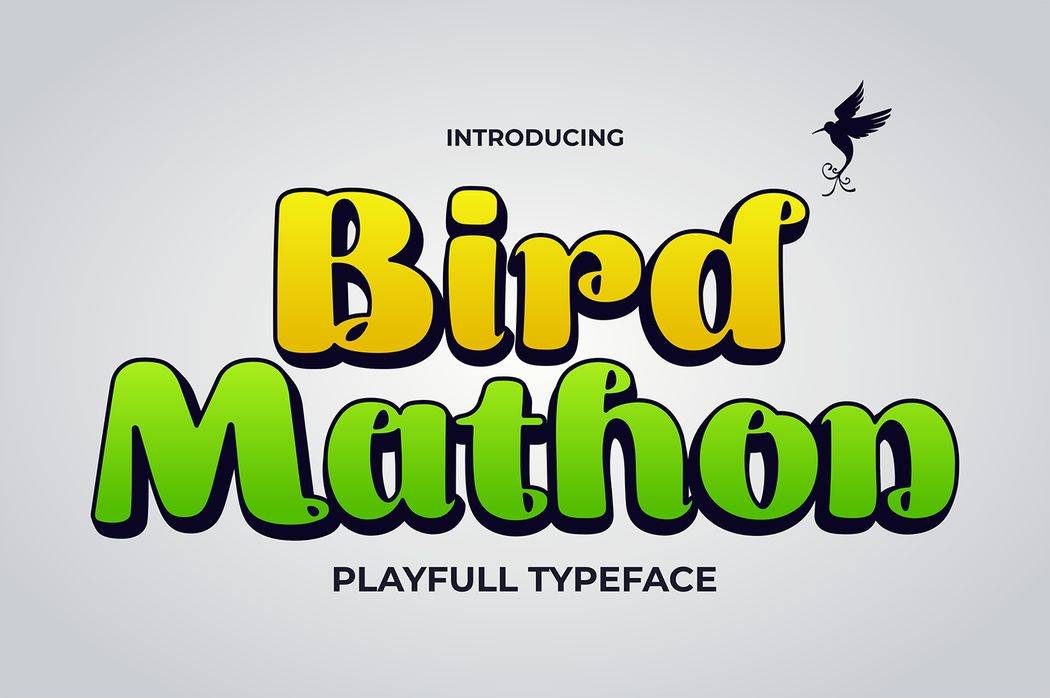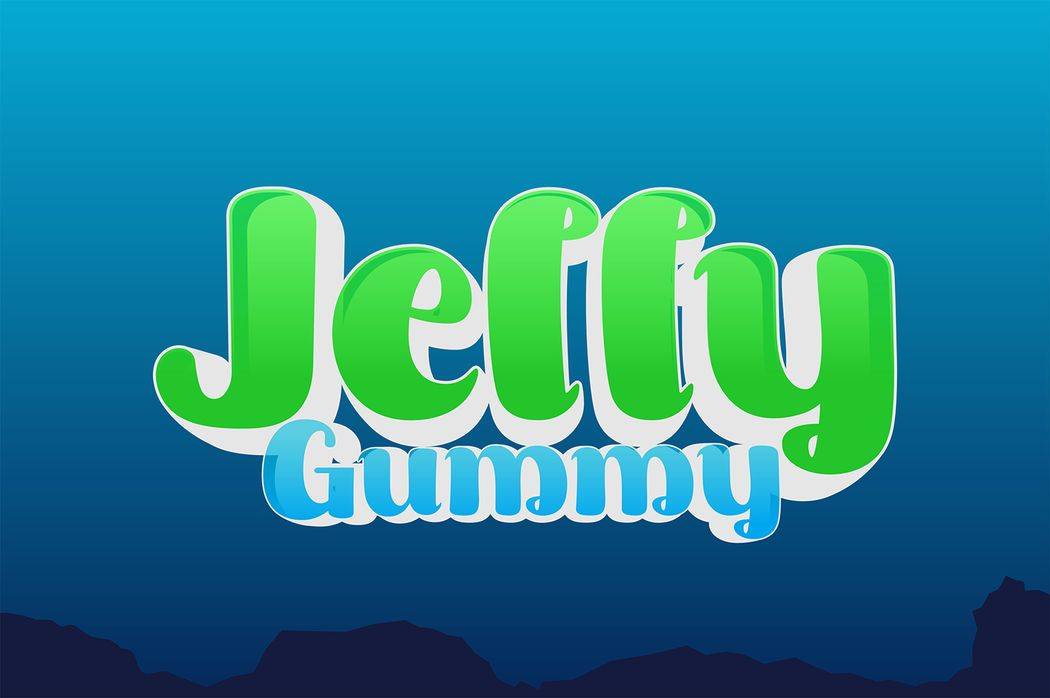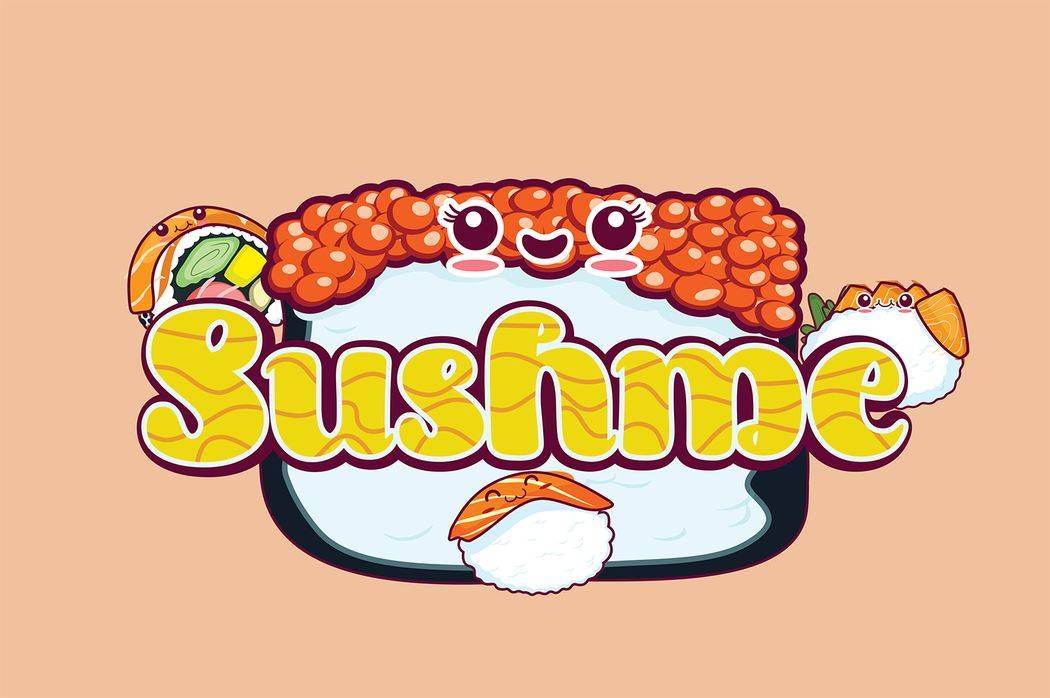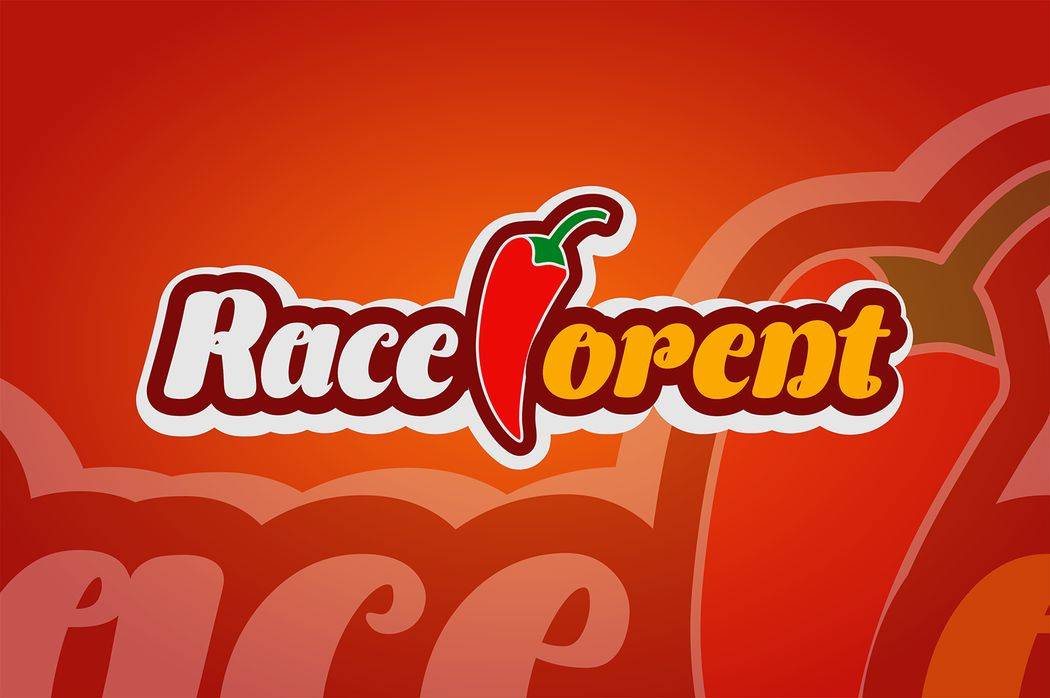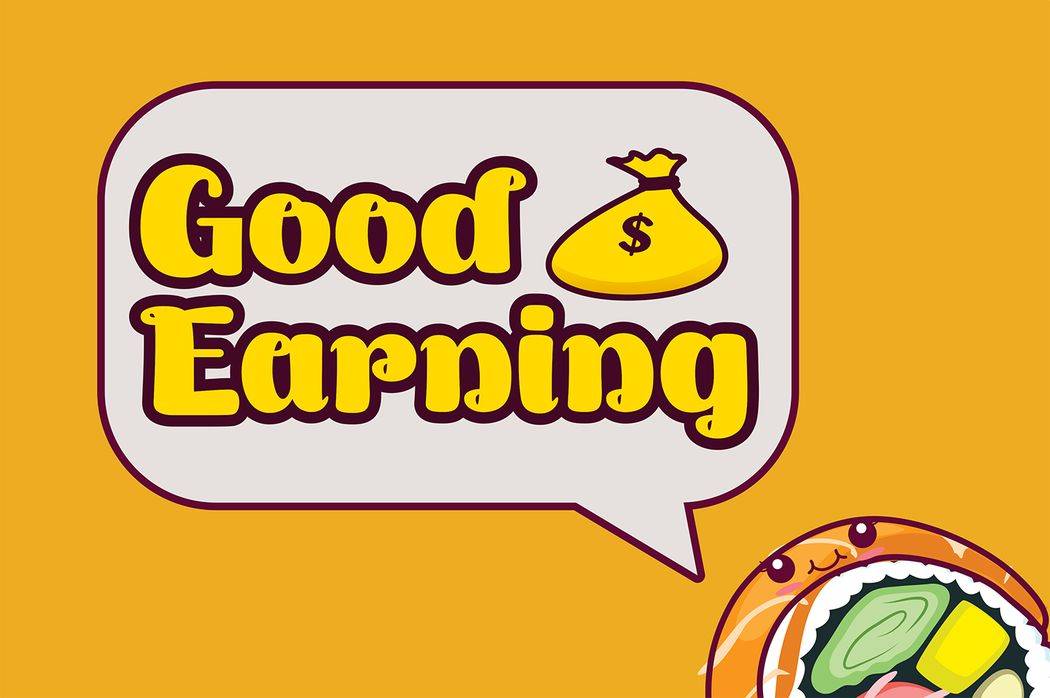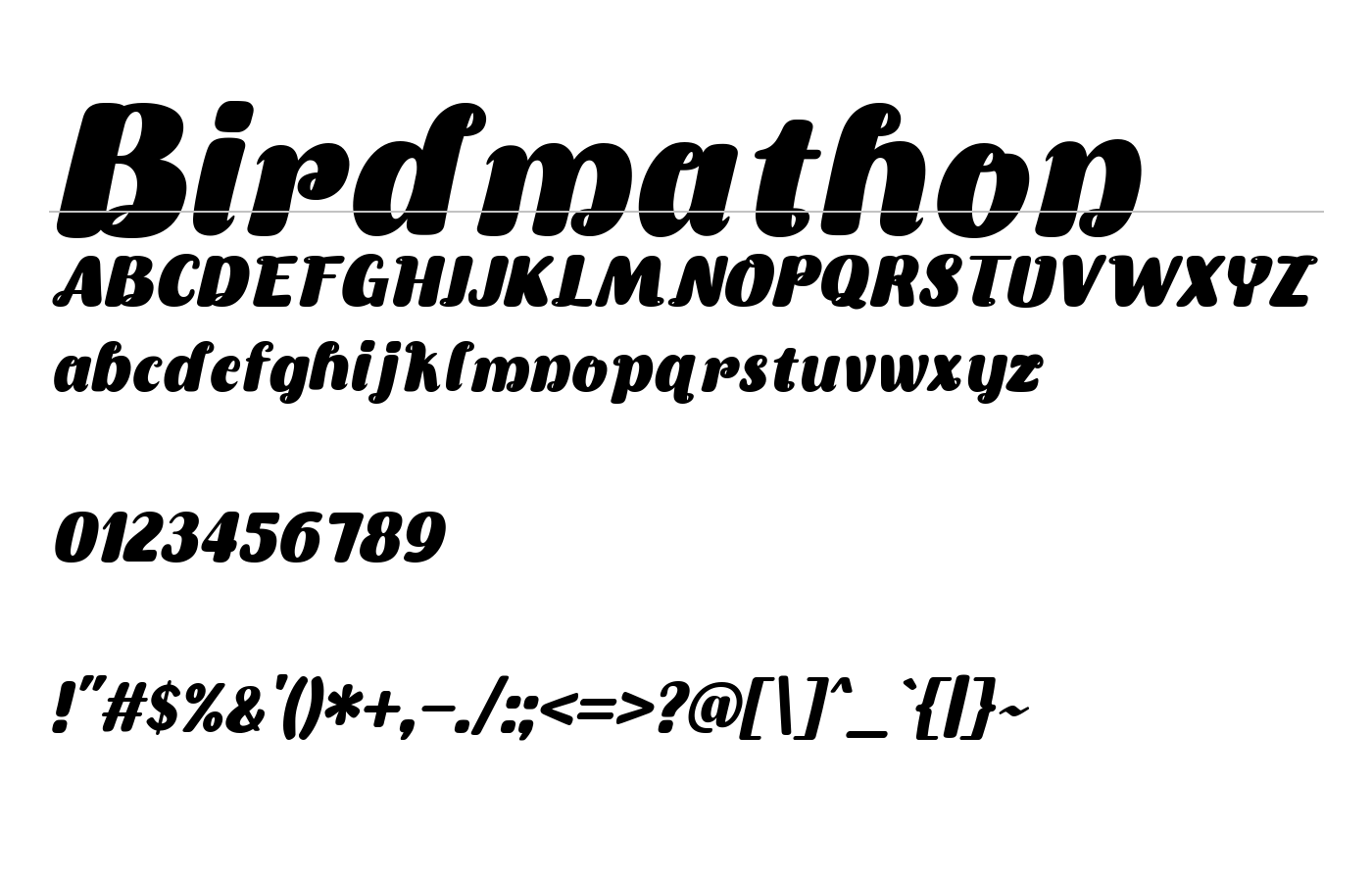
Birdmathon is a bold, playful script font with rounded edges and a smooth, flowing style that combines the charm of hand lettering with strong, consistent weight. Its high x-height and slightly condensed forms make it attention-grabbing and readable, ideal for creative branding, headlines, and packaging that want to convey energy and friendliness. This font works wonderfully for fun, informal designs seeking a lively and approachable personality.
Birdmathon Font
About Birdmathon Font